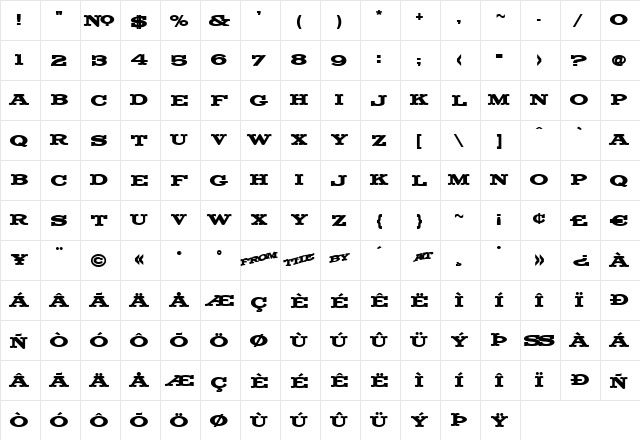
LHF Fancy Full Round BOLD Regular Font Preview
Design Context for LHF Fancy Full Round BOLD Typeface
LHF Fancy Full Round BOLD softens its letterforms with rounded terminals, giving it an approachable, friendly quality that works well in consumer-facing and digital contexts. Its bold stroke weight gives it real presence on the page.
Well-suited to UI design, mobile interfaces, and any brand that wants approachability without sacrificing clarity.
Font Pairing: Pairs well with a rounded or humanist sans for body copy, maintaining the friendly tone without relying on LHF Fancy Full Round BOLD to carry extended reading.
Pro Tip: Use LHF Fancy Full Round BOLD for UI elements, app interfaces, and anywhere a friendly, approachable tone needs to be maintained without sacrificing clarity.